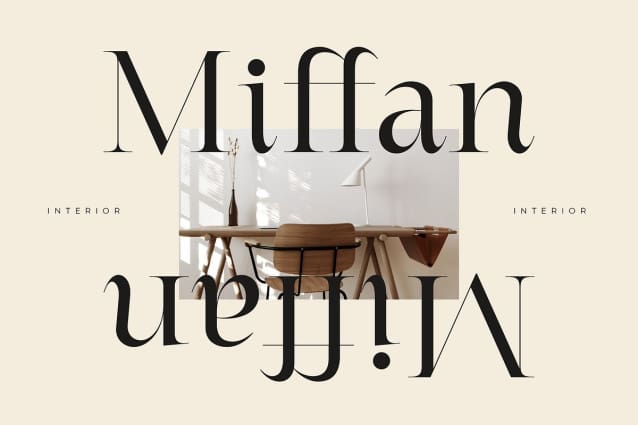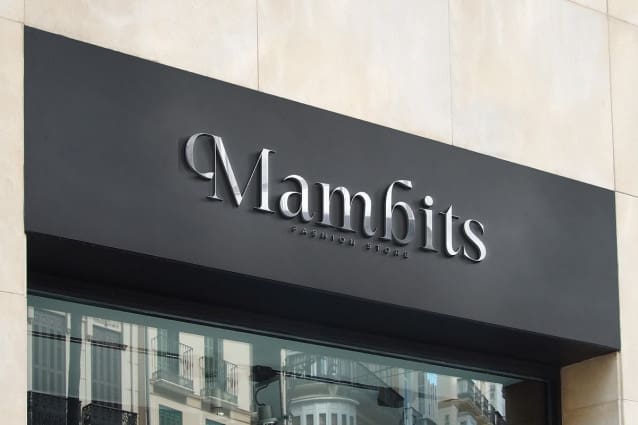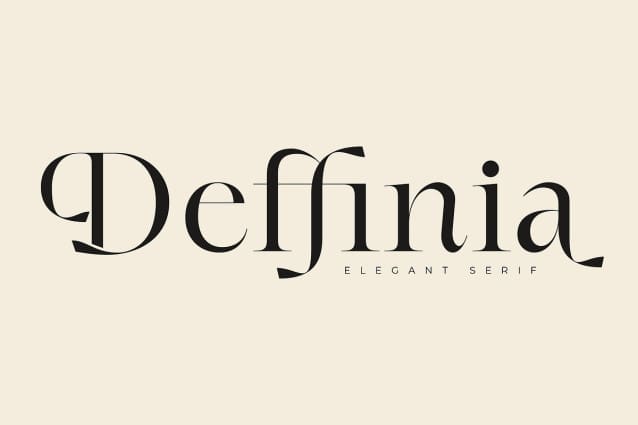
Deffinia Font
Deffinia Font is an elegant with a slight vintage flavor font that is suitable for for logos, trademarks, headlines, and more. It offers versatility with Basic Latin Glyphs and various alternates (even some ligatures) for unique designs. With multilingual support, it ensures seamless communication with a global audience while retaining its vintage charm. The font also includes a Private Use Area (PUA) feature for additional customization. Overall, Deffinia Font is a powerful font that combines boldness, vintage appeal, and adaptability to elevate your creative projects and leave a lasting impression.